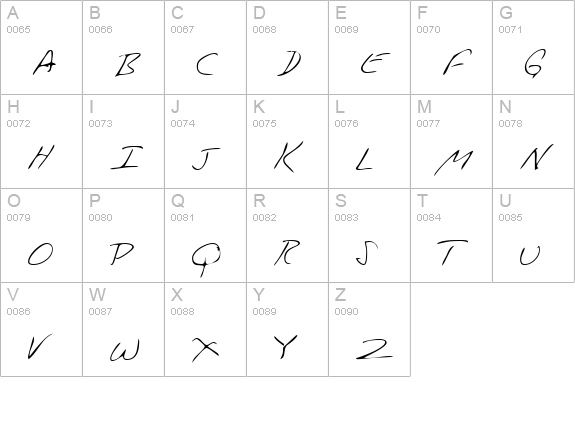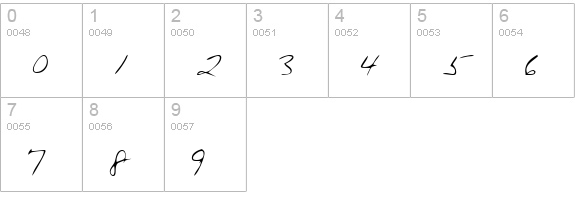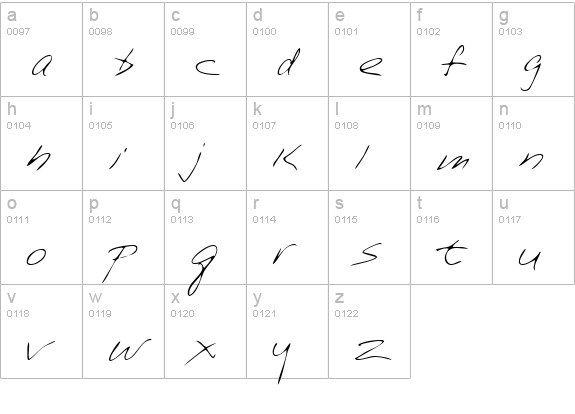
PerrysHand Regular Font Details
PerrysHand Regular is the standard, neutral variant in the PerrysHand typeface family \xE2\x80\x94 well suited to general body text, paragraphs, and standard typographic work.
PerrysHand Regular font is a beautifully crafted typeface that exudes elegance and sophistication. Its flowing strokes and delicate curves make it perfect for adding a touch of charm to any design project. Whether you're creating wedding invitations, branding materials, or simply want to enhance the aesthetic appeal of your personal blog, PerrysHand Regular font is sure to impress. What sets PerrysHand Regular font apart is not only its timeless design, but also the fact that it is freely available to download at FontsMarket.com. This means that you can enjoy the beauty and versatility of this font without any cost. Say goodbye to expensive licensing fees and hello to creative freedom. With PerrysHand Regular font, you can effortlessly elevate your designs to new heights. Its versatility allows it to be used in a variety of contexts, from formal to casual. Its legibility ensures that your message will be conveyed with clarity and style. Download PerrysHand Regular font today from FontsMarket.com and unlock a world of endless design possibilities. Whether you're a professional designer or simply someone who appreciates the beauty of typography, this font is a must-have in your collection. Don't miss out on the opportunity to add a touch of elegance to your next project - get PerrysHand Regular font now and let your creativity soar.